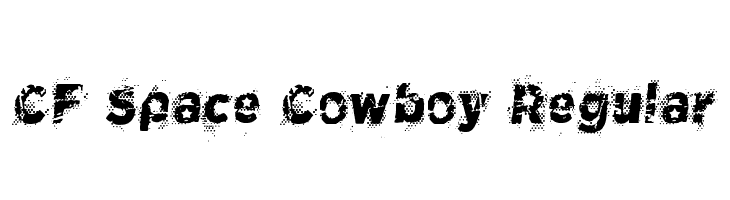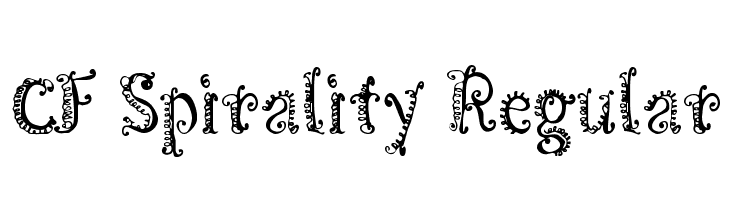
A bold, playful font with a snow-capped, three-dimensional effect.
A playful, snow-themed font with bold, outlined characters.
A bold, textured font with a distressed, grunge aesthetic.
An ornate, decorative font with intricate detailing and a whimsical style.
A bold, distressed font with a unique halftone pattern for a rugged, dynamic look.
A futuristic, geometric font with clean lines and rounded edges.
A whimsical, decorative font with intricate spirals and curls.
A playful, decorative font with floral and springtime motifs.
A bold, distressed stencil font with a vintage, industrial feel.